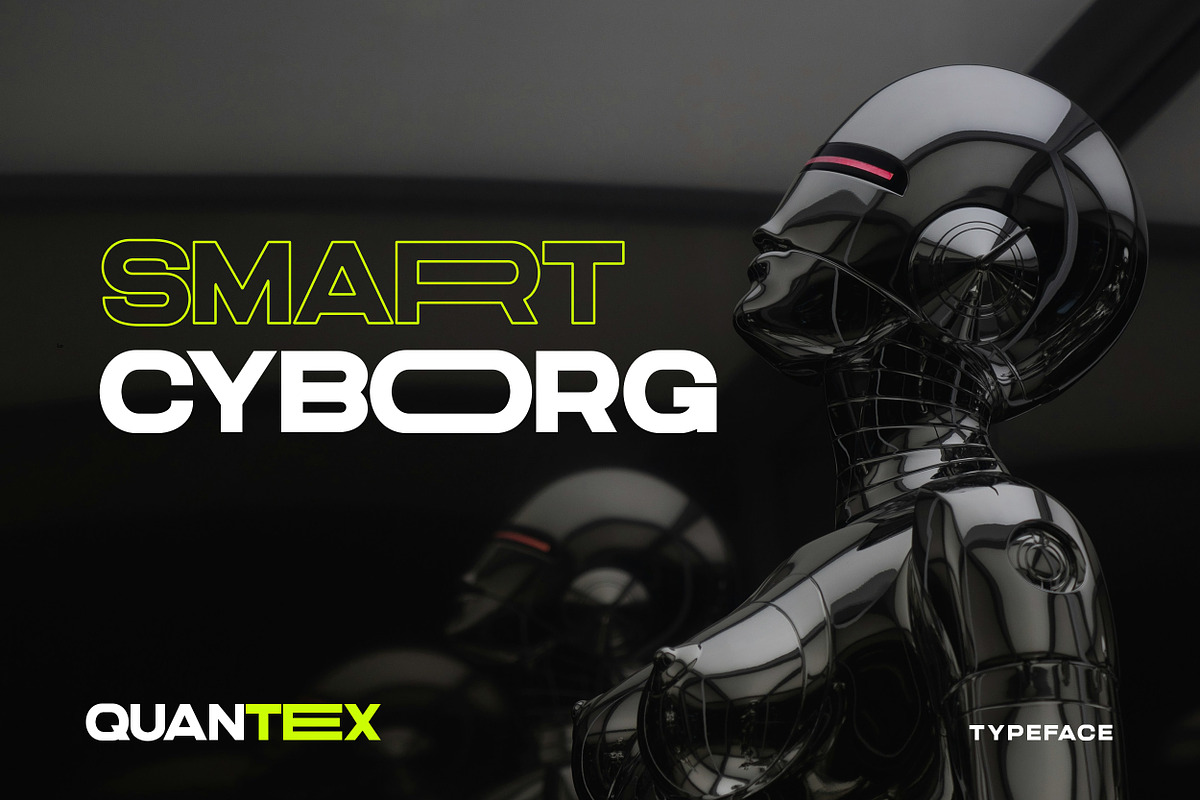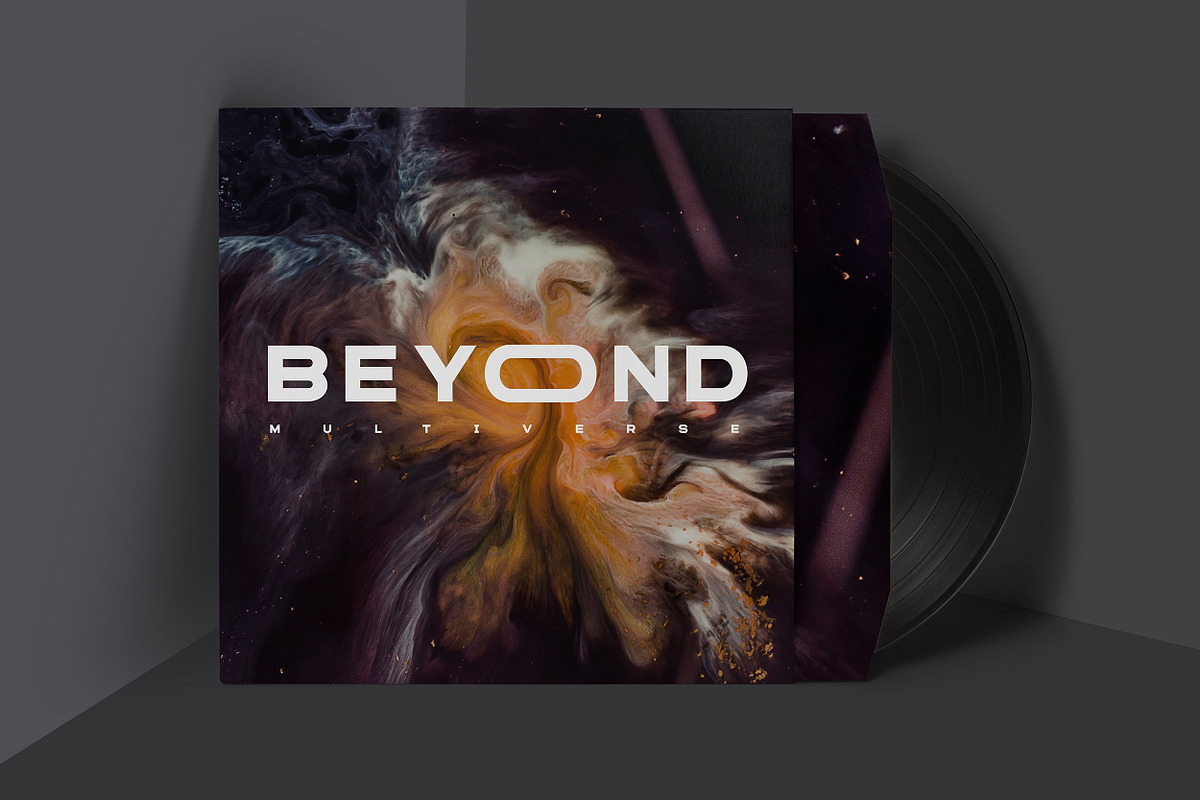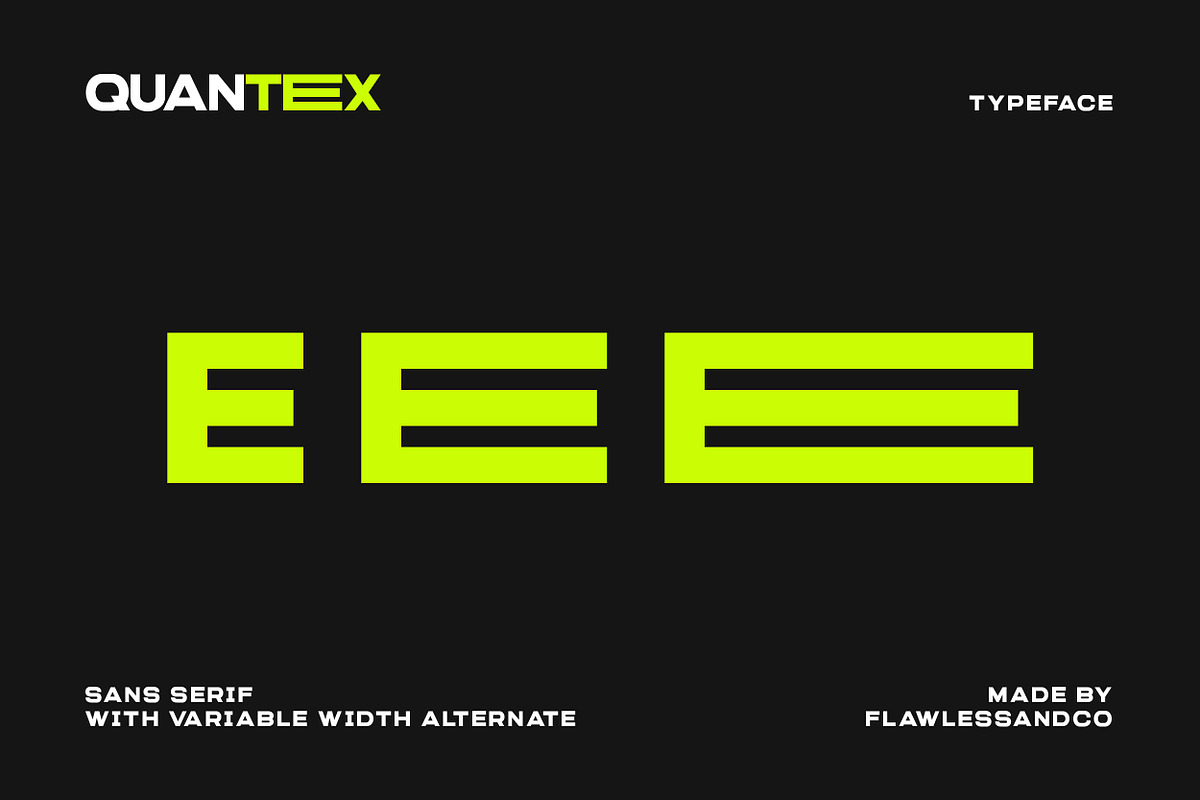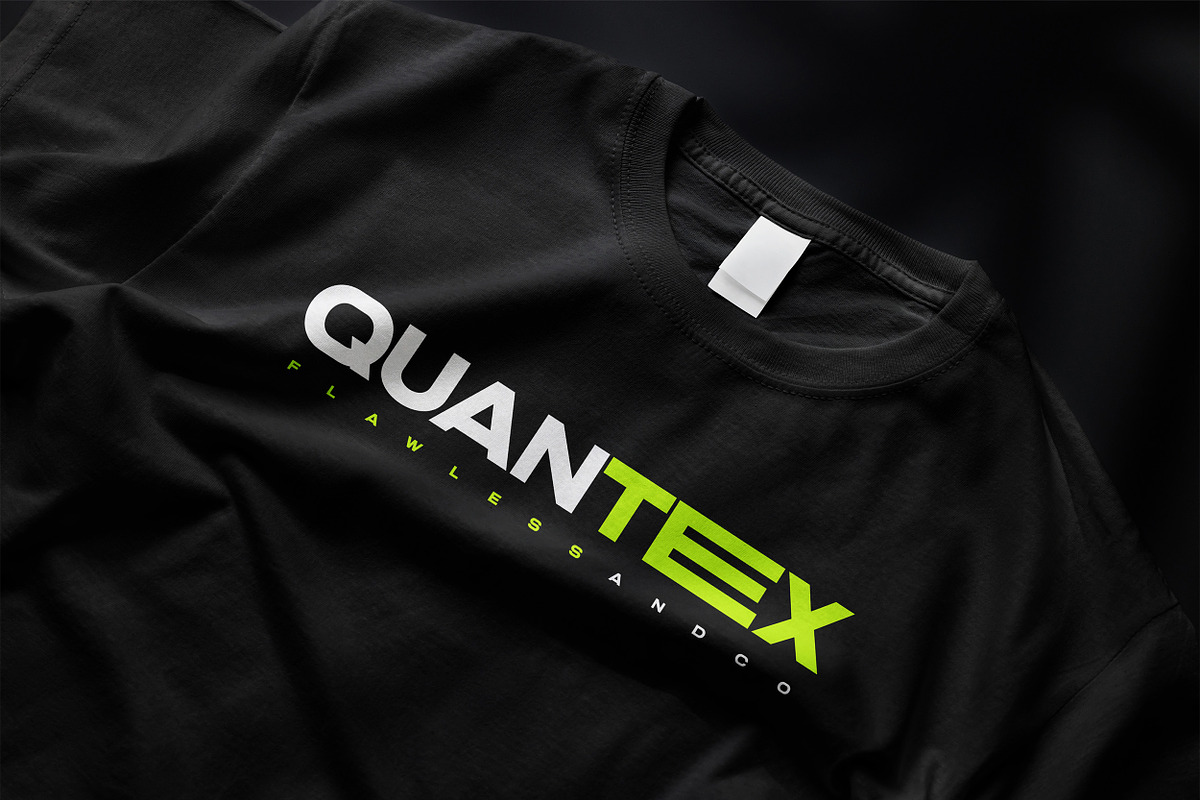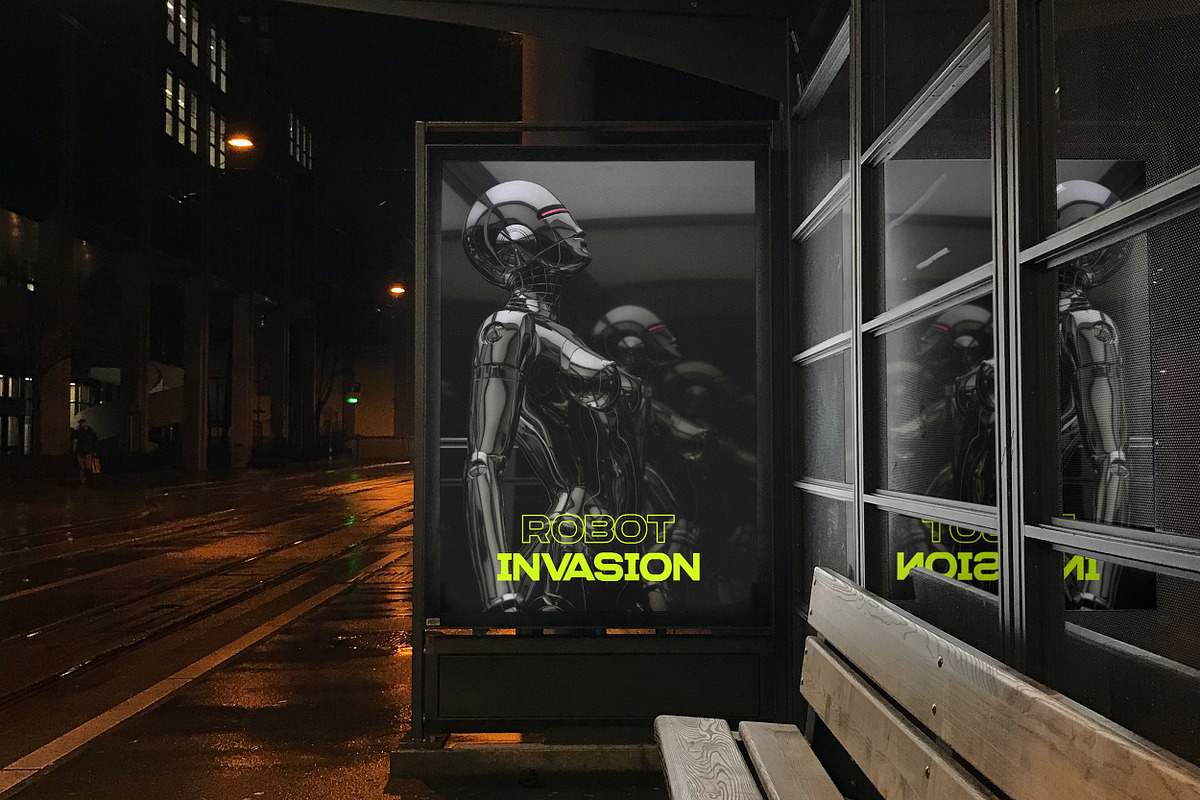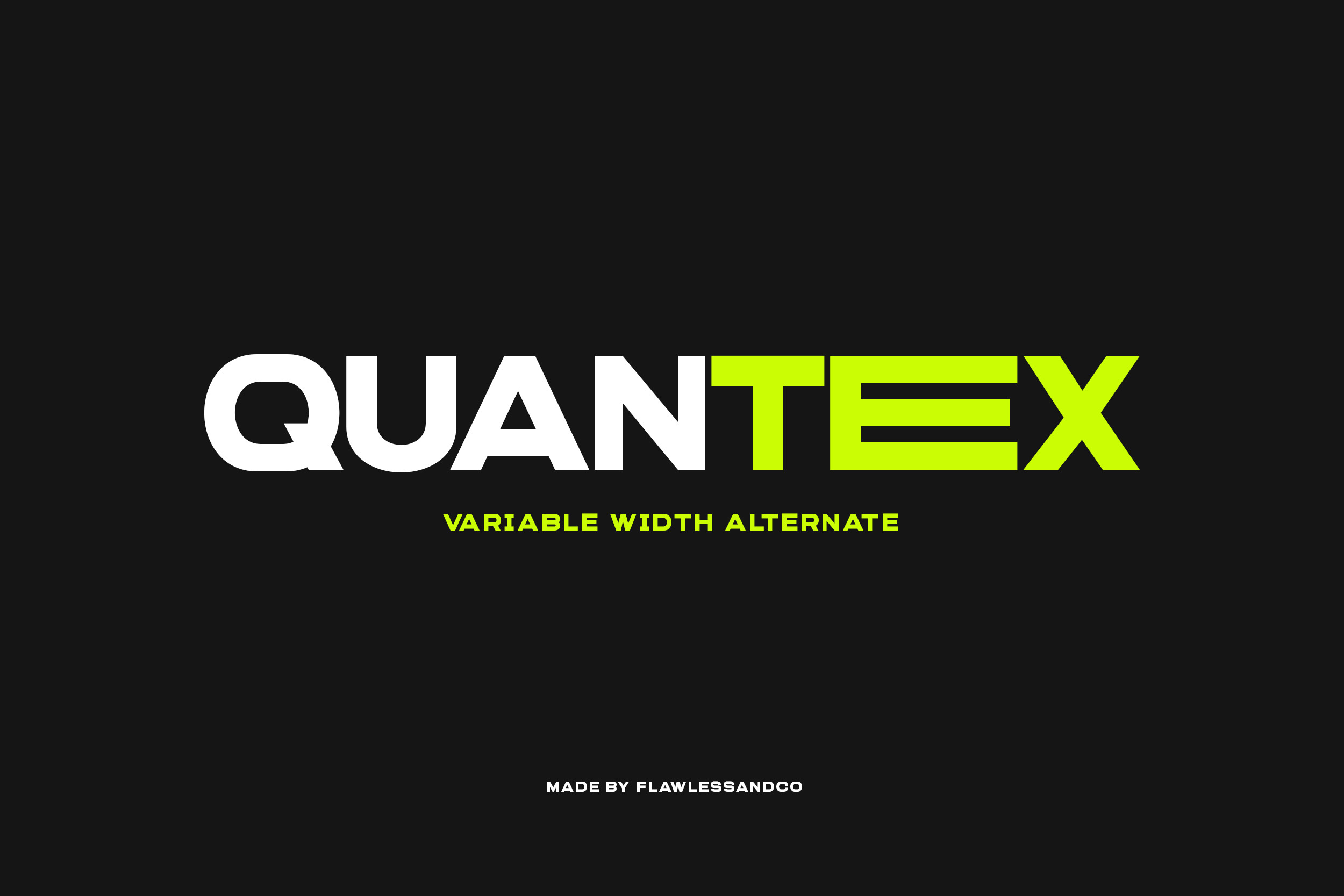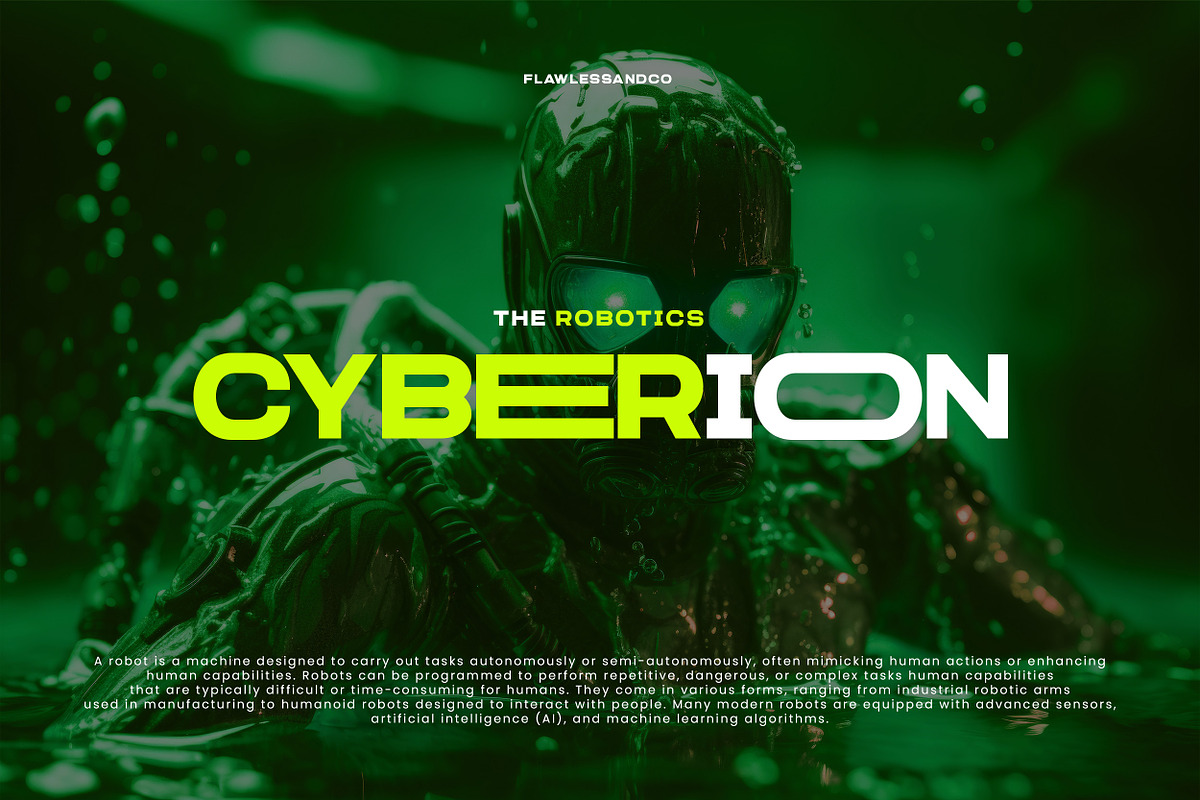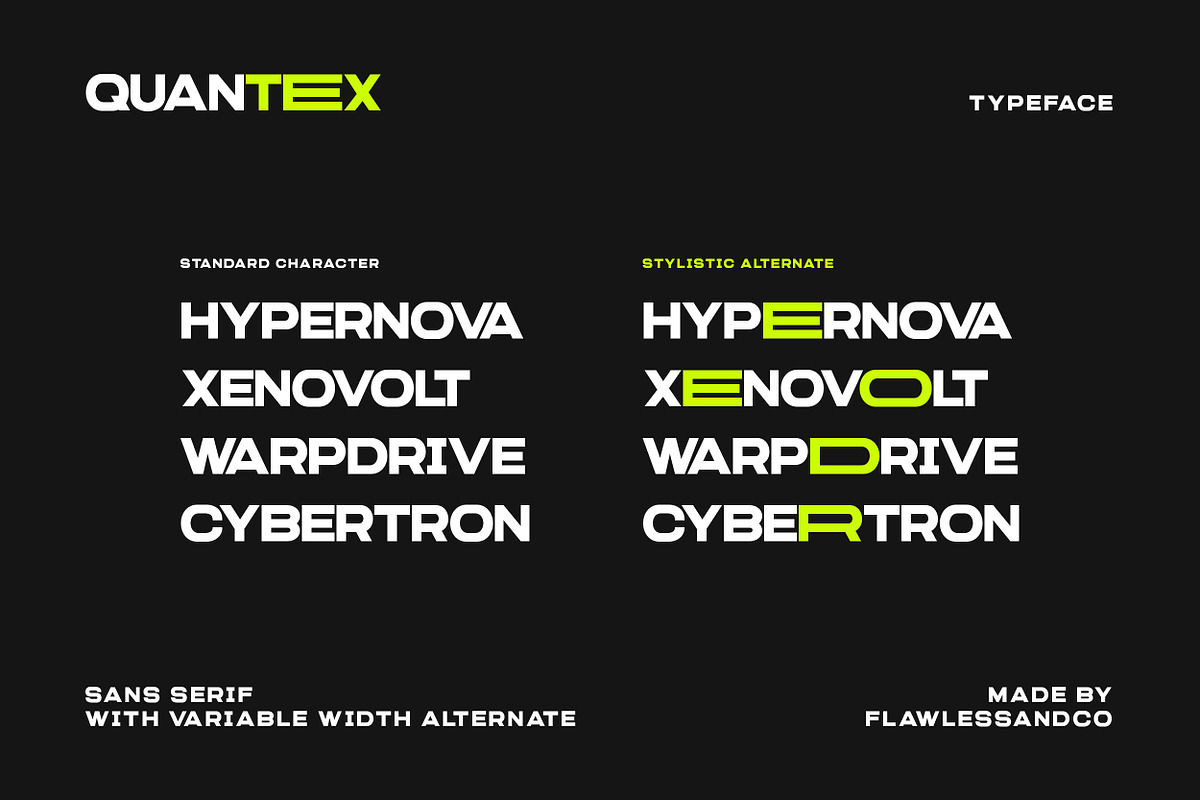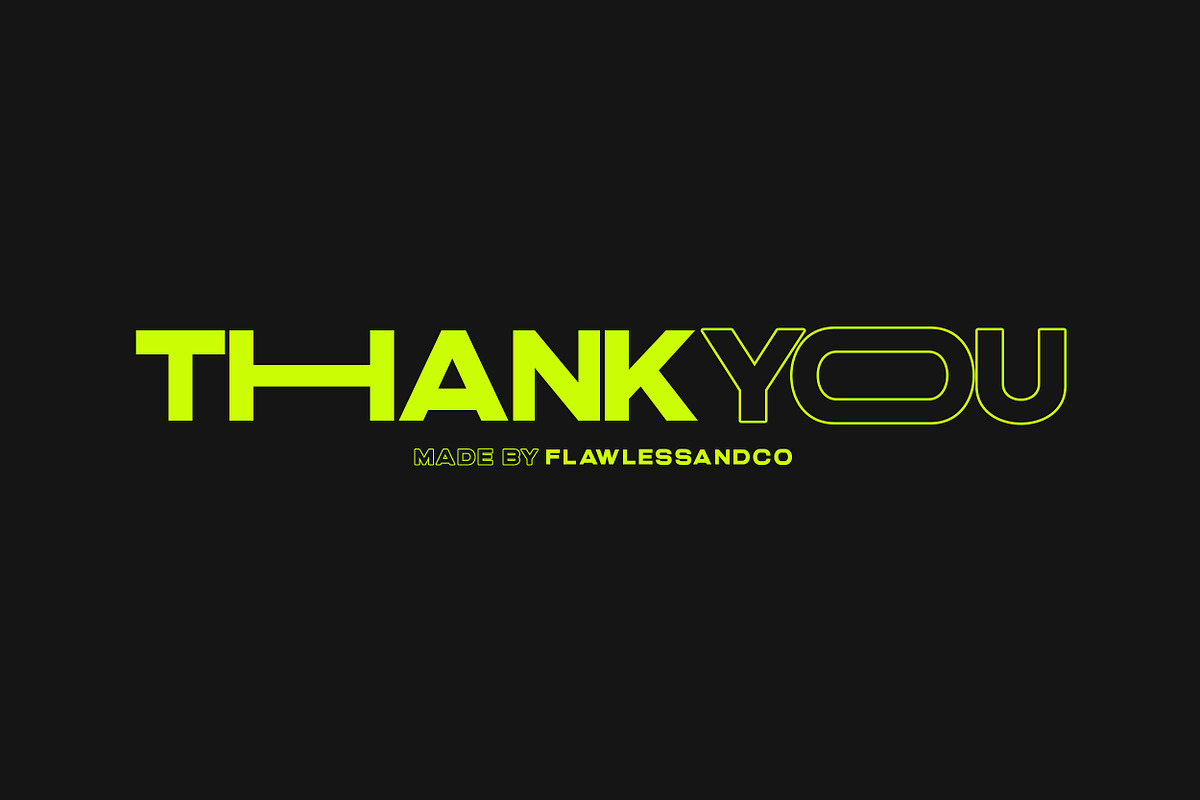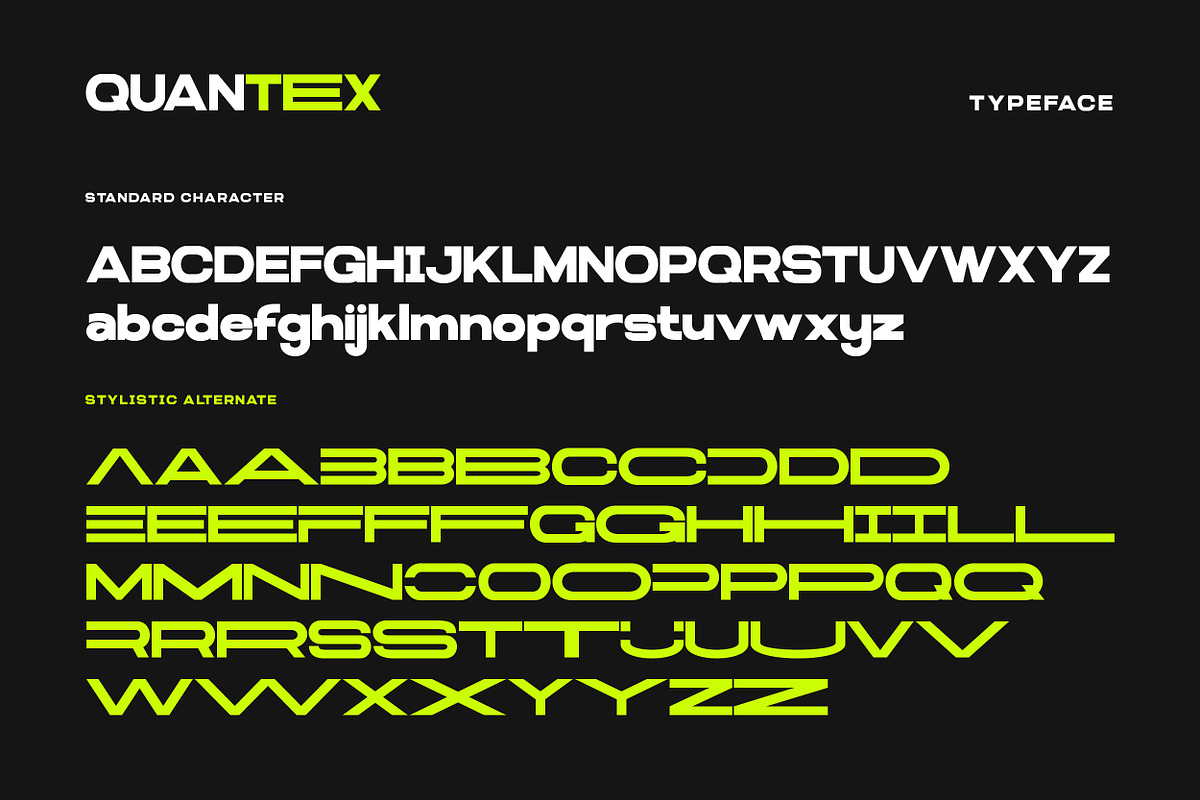
Quantex - Futuristic Font
Quantex is a sleek and modern sans serif futuristic font designed for innovation-driven designs. With its clean lines and sharp angles, this typeface exudes a high-tech and forward-thinking aesthetic. Suitable for sci-fi posters, technology branding, gaming interfaces, futuristic advertisements, and digital projects, Quantex brings a bold and cutting-edge look to any creative work.